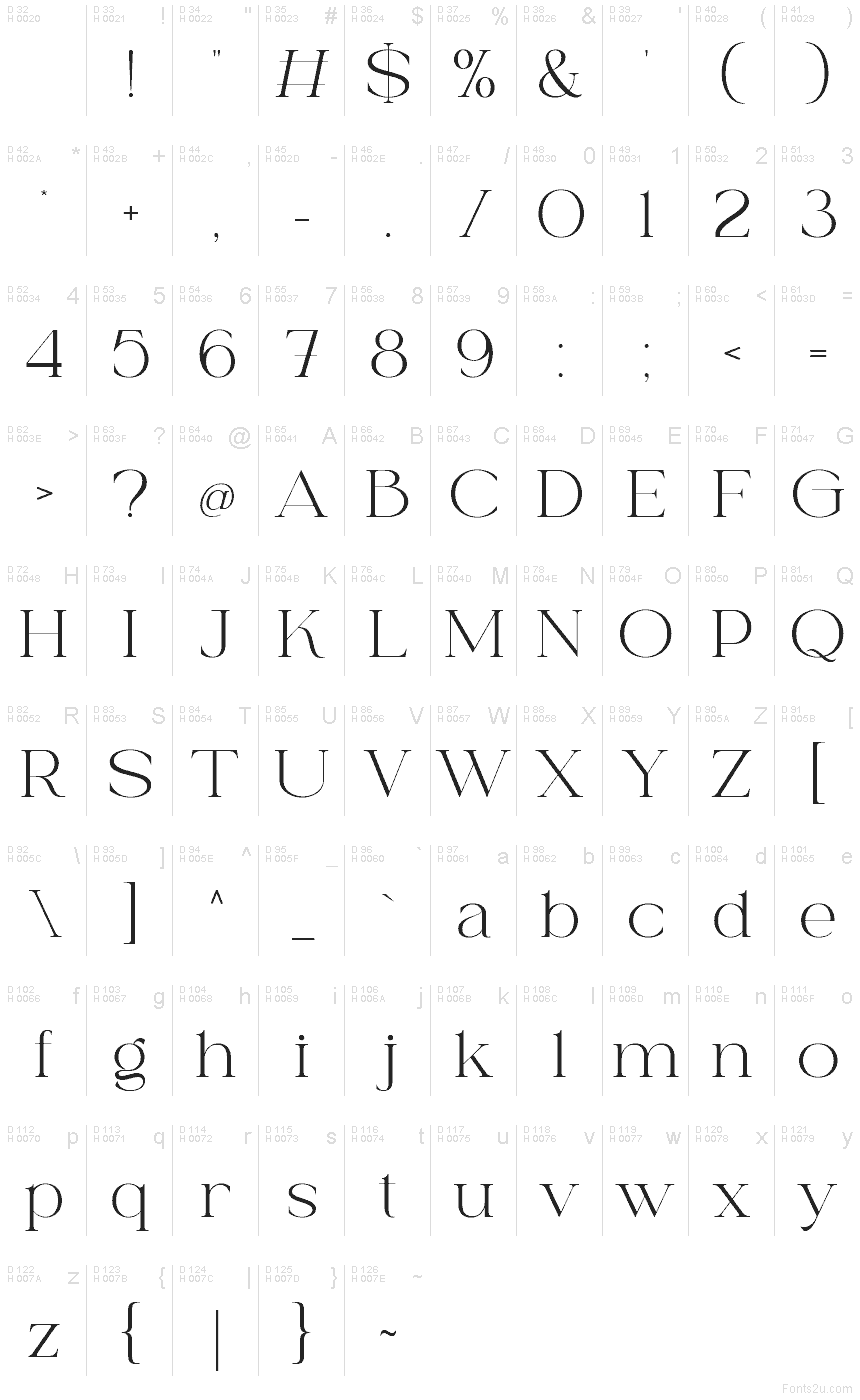
Paris Forbel
Paris Forbel font by HansCo is a free high-contrast serif font. Needle-thin hairlines meet inky verticals and crisp, razor-cut serifs, creating that glossy editorial sheen without feeling brittle. The rhythm is poised and upright, with airy counters that let headlines breathe while still delivering couture-level drama.
Using Paris Forbel, your work shines on fashion branding, magazine covers, beauty packaging, perfume labels, wedding invitations, upscale menus, and lookbooks. This free font thrives large—keep it above 24pt—and add a touch of tracking for extra shimmer. For body copy or captions, pair it with a quiet, modern sans to keep the spotlight on those elegant, high-contrast strokes.